11 Best 70s Retro Fonts for Logos, Posters & Branding in 2026
As a designer, I love exploring typography that brings character and nostalgia into modern creative work. This collection of 11 best 70s retro fonts for logos, posters, and branding in 2026 features typefaces I personally use to create bold, expressive, and visually memorable designs.
Inspired by the iconic aesthetics of the 1970s, these fonts combine vintage charm with contemporary versatility. From groovy letterforms and bold curves to stylish retro display type, each selection is perfect for logos, posters, packaging, apparel graphics, social media content, and creative brand identities.
I carefully choose fonts that capture the energy and personality of retro design while remaining relevant for modern projects, helping brands stand out with a unique and timeless visual appeal.
Rambors – Nostalgic Retro Font
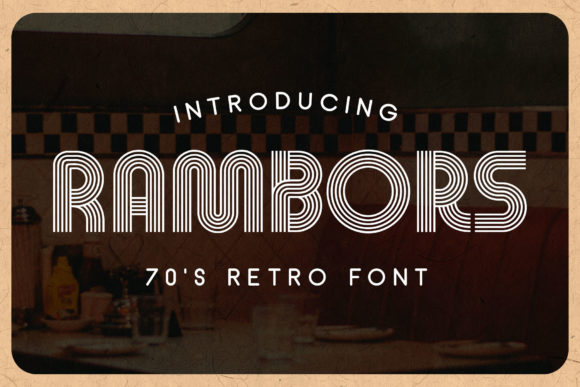
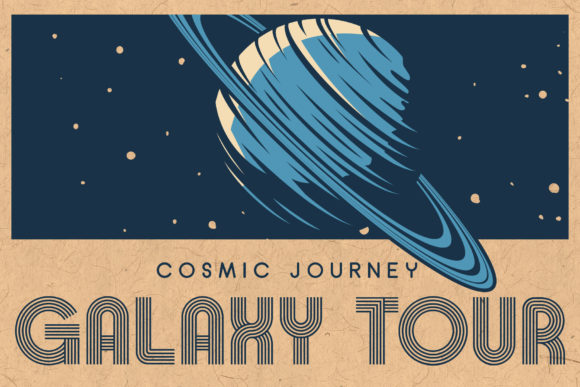
Rambors is a bold multiline display font inspired by the iconic design trends of the 1970s, blending retro nostalgia with a futuristic edge. I love using it for posters, flyers, stickers, branding, motion graphics, and eye-catching headlines because its unique letterforms instantly grab attention. The playful vintage aesthetic, combined with modern design flexibility and alternate characters, makes Rambors a perfect choice for creating creative, energetic, and visually striking projects.
De Augusta Retro Font
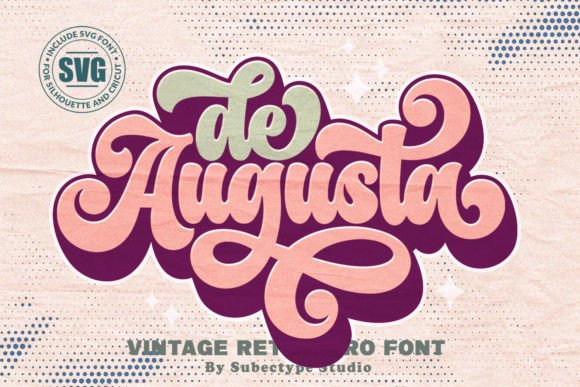
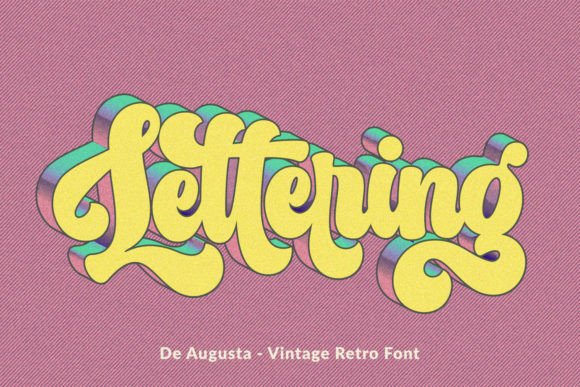
De Augusta is a bold vintage retro font inspired by the iconic typography and lettering styles of the 70s and 80s. I enjoy using it for logos, badges, t-shirt designs, posters, branding, packaging, signage, and book covers because its strong retro character instantly adds personality and nostalgia. The classic letterforms and bold styling create a timeless aesthetic that makes every design feel authentic, eye-catching, and full of vintage charm.
Back to Vintage Retro Font
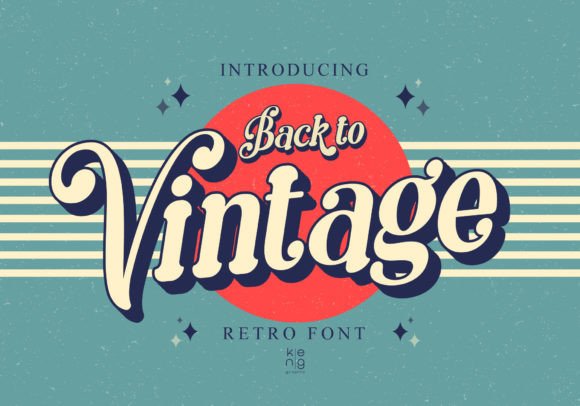
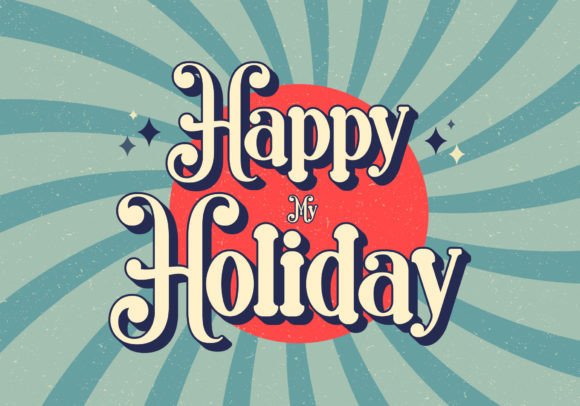
Back to Vintage is a retro display font inspired by the iconic typography of the 60s, 70s, and 80s. I love using it for posters, logos, packaging, branding, merchandise, and social media graphics because its soft rounded letterforms create a nostalgic yet approachable feel. The distinctive vintage style instantly grabs attention and adds a timeless retro charm that makes every design look bold, fun, and full of character.
Retro Lettering Retro Font
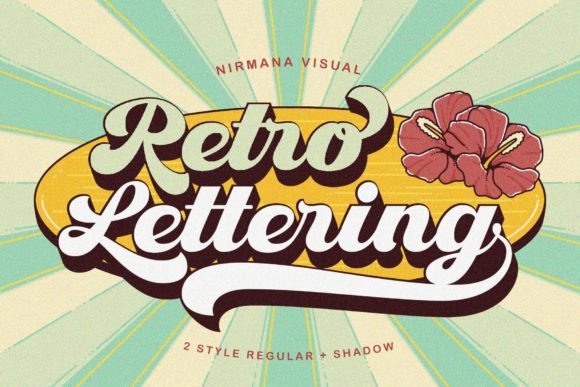
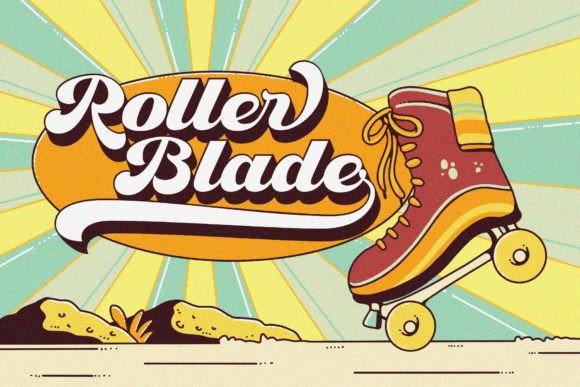
Retro Lettering is a cool display font inspired by the ’70s design era. Retro Lettering offers beautiful typographic harmony for a diversity of design projects, including logos & branding, social media posts, advertisements & product designs.
Sunday Vibes Retro Font
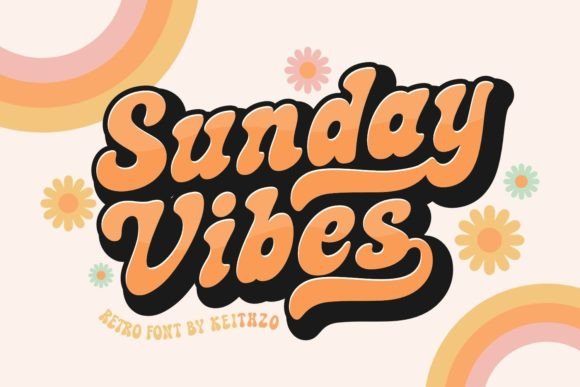
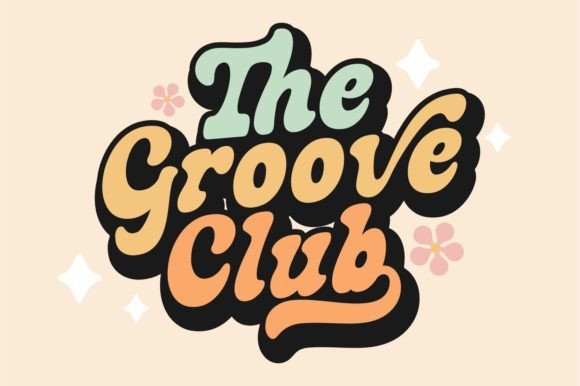
Sunday Vibes is a groovy script display font that captures the free-spirited energy of the 1960s and 70s. I enjoy using it for posters, branding, apparel, packaging, social media graphics, and retro-inspired designs because its flowing hand-drawn lettering feels playful and full of personality. The exaggerated curves, loops, and swirls create a nostalgic aesthetic that makes every headline stand out with charm, creativity, and vintage flair.
Super Groovy Retro Font
Super Groovy is a playful retro font that perfectly captures the colorful, carefree spirit of the 1970s. I love using it for stickers, t-shirt designs, packaging, tote bags, branding, posters, social media graphics, and merchandise because its bold letterforms instantly add energy and personality. The nostalgic retro style and fun curves create a vibrant aesthetic that makes every design feel cheerful, memorable, and full of vintage charm.
Retro Groove Retro Font
Retro Groove is a bold display font that brings the fun and expressive spirit of the 70s into modern design. I enjoy using it for posters, logos, branding, packaging, merchandise, and eye-catching headlines because its funky curves and dynamic letterforms feel energetic and full of character. The playful retro aesthetic creates a strong visual impact, making every design look vibrant, nostalgic, and impossible to ignore.
Back to Beach Retro Font
Back to Beach is a vintage-style retro font inspired by the iconic typography of the 60s, 70s, and 80s. I love using it for beach-themed branding, posters, packaging, logos, apparel, and social media graphics because its rounded letterforms create a fun and nostalgic atmosphere. The bold retro character and soft curves instantly capture attention, giving every design a warm, laid-back, and timeless vintage appeal.
The Retro Font
The Retro font is a clean and smooth vintage-style typeface inspired by 70s and 80s typography. Bold and eye-catching, it instantly adds a nostalgic retro vibe to any design. Perfect for logos, posters, branding, packaging, social media, and creative projects, this display font brings a distinctive retro touch that stands out and enhances modern vintage aesthetics.
Thankful Retro Font
Thankful is a bold and chunky retro display typeface that radiates warmth, nostalgia, and festive energy. Featuring thick blocky letterforms with soft curves and playful ligatures, it is perfect for Christmas branding, Thanksgiving events, vintage apparel, posters, merchandise, and 70s-inspired designs. Ideal for high-impact retro typography, Thankful delivers a fun, memorable, and old-school aesthetic for seasonal and creative projects.